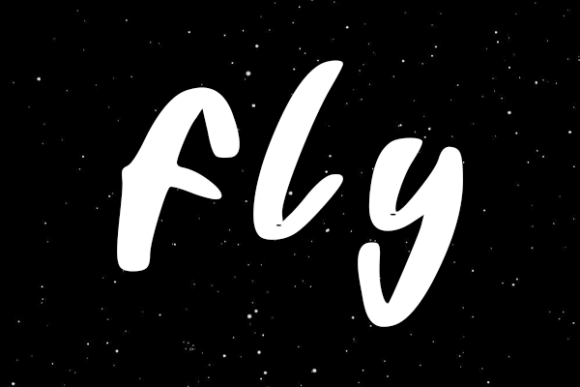
Introducing Fly Font: Elevate Your Designs with Elegance and Sophistication
Are you a designer or crafter looking for the perfect font to take your creative projects to the next level? Look no further than Fly Font! With its unique and beautiful touch, Fly Font is the ideal choice for creating eye-catching logos, branding, and quotes that will leave a lasting impression.
The Art of Typography: Why Fly Font Stands Out
Typography is an essential element of design, and the right font can make all the difference. Fly Font is a masterpiece of typography, with each letter carefully crafted to add a touch of elegance and sophistication to your designs. Whether you’re working on a logo, brochure, or social media post, Fly Font is the perfect choice for adding a professional and polished touch.
Unique and Beautiful: The Characteristics of Fly Font
So, what sets Fly Font apart from other fonts? The answer lies in its unique and beautiful design. Every letter has a distinctive touch that adds a level of refinement and luxury to your designs. From the elegant curves to the precise lines, Fly Font is a true work of art that will elevate your creative projects to new heights.
Endless Possibilities: How to Use Fly Font in Your Designs
Fly Font is incredibly versatile, making it suitable for a wide range of design applications. Here are just a few ideas to get you started:
- Logos and Branding: Create a lasting impression with a custom logo or branding that incorporates Fly Font. Perfect for businesses, products, or services that want to stand out from the crowd.
- Quotes and Typography: Add a touch of elegance to your quotes and typography with Fly Font. Ideal for social media posts, posters, or flyers that require a professional and sophisticated look.
- Stationery and Packaging: Elevate your stationery and packaging with Fly Font. Perfect for businesses or individuals who want to add a touch of luxury to their correspondence or product packaging.
Why Designers and Crafters Love Fly Font
Fly Font has quickly become a favorite among designers and crafters, and for good reason. Here are just a few reasons why:
- Easy to Read: Fly Font is incredibly easy to read, making it perfect for designs that require a clear and concise message.
- Highly Versatile: Fly Font can be used in a wide range of design applications, from logos and branding to quotes and typography.
- Unique and Memorable: Fly Font is truly one-of-a-kind, making it the perfect choice for designers and crafters who want to create unique and memorable designs.
Get Ready to Take Your Designs to New Heights
With Fly Font, you can take your designs to new heights and create stunning visual effects that will leave a lasting impression. Whether you’re a seasoned designer or just starting out, Fly Font is the perfect choice for adding a touch of elegance and sophistication to your creative projects.
In conclusion, Fly Font is the ultimate choice for designers and crafters who want to create eye-catching logos, branding, and quotes. With its unique and beautiful touch, Fly Font is sure to elevate your designs and add a level of refinement and luxury that will leave a lasting impression. So why wait? Try Fly Font today and discover the endless possibilities of creative design!